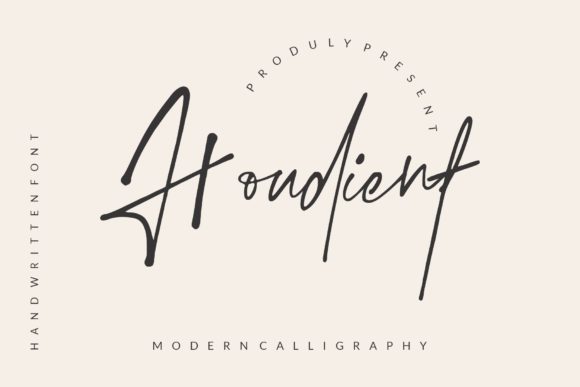
Behold Houdient, the enchanting script font that will add a touch of magic to your creative endeavors. With its graceful curves and elegant strokes, Houdient exudes a timeless beauty and sophistication unmatched by any other script font.
Journey into a world of endless possibilities with Houdient – a font that's made for capturing life's most precious moments. Whether you're designing a wedding invitation, crafting a romantic letter, or creating a captivating social media post, Houdient will elevate your words and captivate your audience.
Indulge in the sheer delight of Houdient's versatility. This font isn't just for the romantics – it's a multi-talented wonder that can transform any project into a visual masterpiece. From playful DIY projects to trendy fashion designs, Houdient adapts seamlessly to suit your unique style. Let your imagination run wild and let Houdient be your artistic partner in crime.
Make a statement with Houdient, a font that radiates class and sophistication. Its refined aesthetic adds a touch of elegance to any design, making it the perfect choice for crafting high-end logos, exquisite business cards, and captivating marketing materials. Watch as Houdient turns your brand into a symbol of luxury and excellence.
But what truly sets Houdient apart is its ability to evoke emotion. Its heartfelt strokes and delicate flourishes will touch the hearts of your readers, creating an emotional connection that goes beyond words. Celebrate love, joy, and life's sweetest moments with Houdient – a font that speaks to the soul.
So step into the enchanting world of Houdient, where creativity knows no bounds and emotions run deep. Let this exquisite font guide you on a journey of self-expression, creativity, and connection. Discover the power of Houdient today!